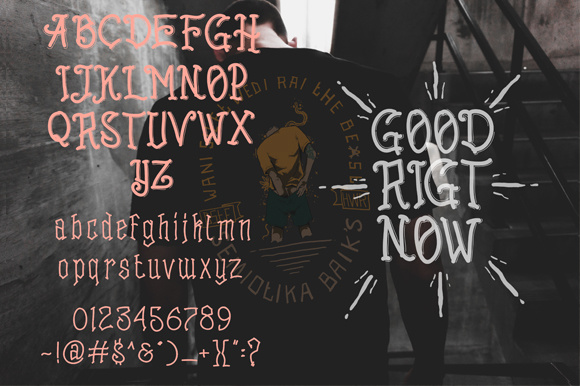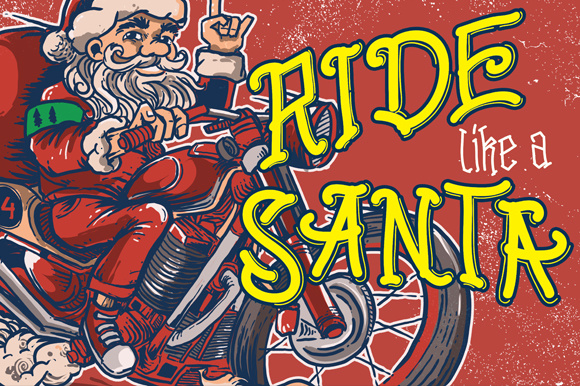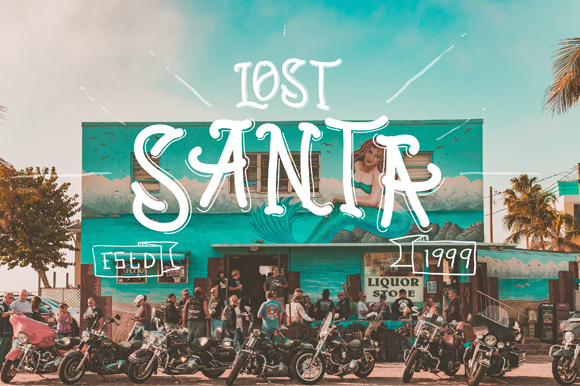
Introducing Goodright Font: Unleash the Wild Side of Your Designs
Are you tired of using the same old fonts in your designs? Look no further! Goodright Font is here to revolutionize the way you create. Inspired by the super powers of bikers, Goodright is a unique and elegant font that adds a touch of manual writing to your designs. With its perfect blend of ruggedness and sophistication, Goodright is the perfect companion for designers and crafters looking to create strong and wild feelings in their projects.
The Inspiration Behind Goodright
Goodright Font is inspired by the fearless and adventurous spirit of bikers. The font’s design is rooted in the idea of freedom and rebellion, which is reflected in its bold and edgy aesthetic. The manual writing touch gives Goodright a personal and human feel, making it perfect for designs that require a little extra personality.
The Characteristics of Goodright
Goodright Font has several characteristics that make it stand out from other fonts. Its unique blend of uppercase and lowercase letters creates a sense of movement and energy, making it perfect for designs that require a dynamic feel. The font’s manual writing touch also gives it a sense of imperfection, which adds to its charm and character.
Using Goodright in Your Designs
Goodright Font is incredibly versatile and can be used in a variety of design projects. Whether you’re creating a logo, poster, or social media graphic, Goodright is the perfect choice. The font’s bold and edgy aesthetic makes it perfect for designs that require a strong and wild feel. You can use Goodright to create:
• Eye-catching logos and branding materials
• Bold and edgy posters and flyers
• Dynamic social media graphics and ads
• Unique and stylish packaging designs
Tips for Using Goodright
To get the most out of Goodright Font, here are a few tips to keep in mind:
• Play with uppercase and lowercase letters to create perfect words
• Experiment with different font sizes and styles to add depth and interest
• Use Goodright in combination with other fonts to create a unique and dynamic design
• Don’t be afraid to get creative and try new things!
The Benefits of Using Goodright
Goodright Font offers a range of benefits for designers and crafters, including:
• A unique and edgy aesthetic that sets your designs apart
• A manual writing touch that adds a personal and human feel
• A versatile font that can be used in a variety of design projects
• A bold and dynamic feel that’s perfect for creating strong and wild feelings
Goodright Font is a game-changer for designers and crafters looking to add a touch of wildness and elegance to their designs. With its unique blend of manual writing and bold aesthetic, Goodright is the perfect companion for creating strong and wild feelings in your projects. So why wait? Download Goodright Font today and unleash the wild side of your designs!
Key Features of Goodright Font
• Unique and edgy aesthetic inspired by bikers
• Manual writing touch for a personal and human feel
• Perfect for designs that require a strong and wild feel
• Versatile font that can be used in a variety of design projects
• Bold and dynamic feel that’s perfect for creating eye-catching designs